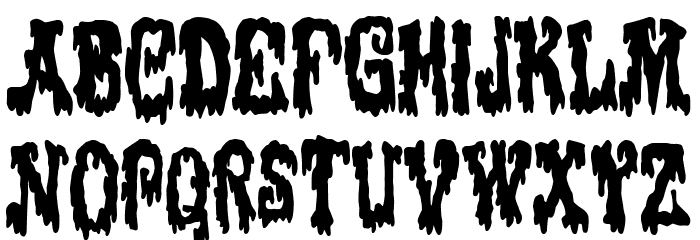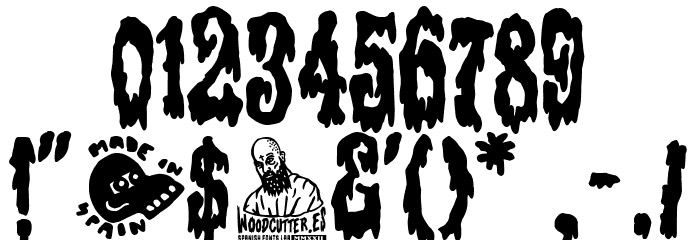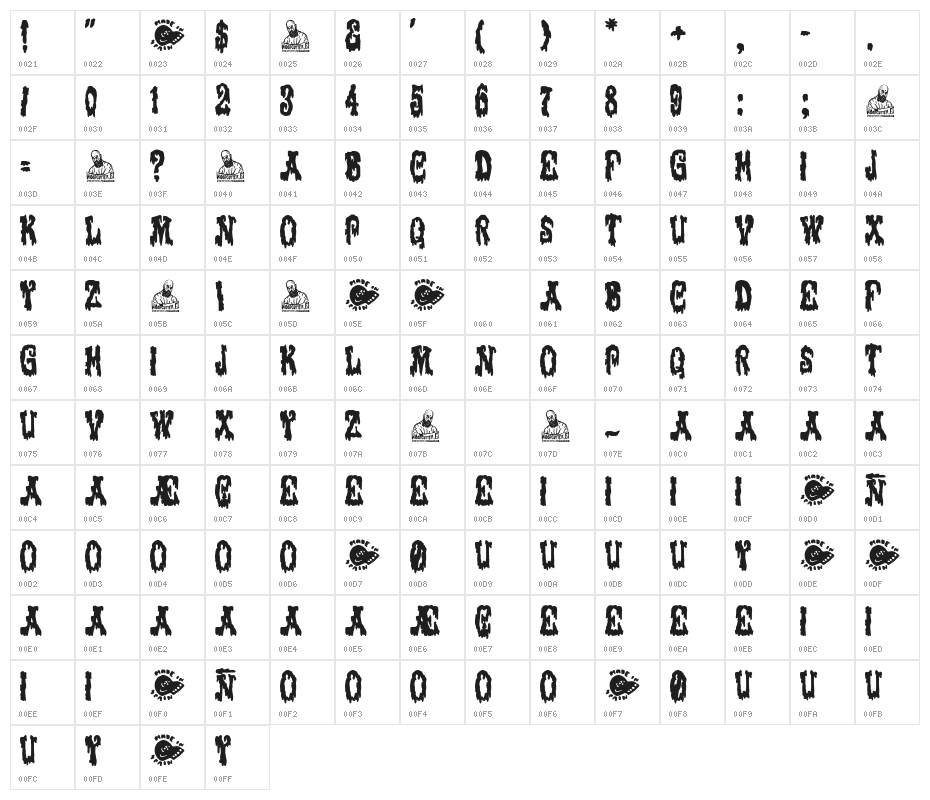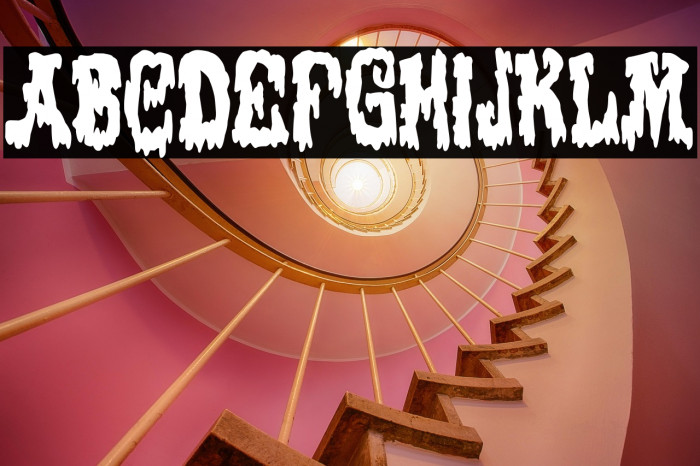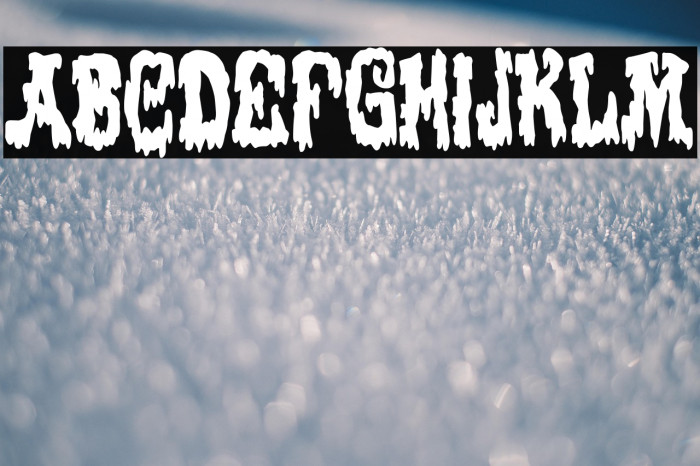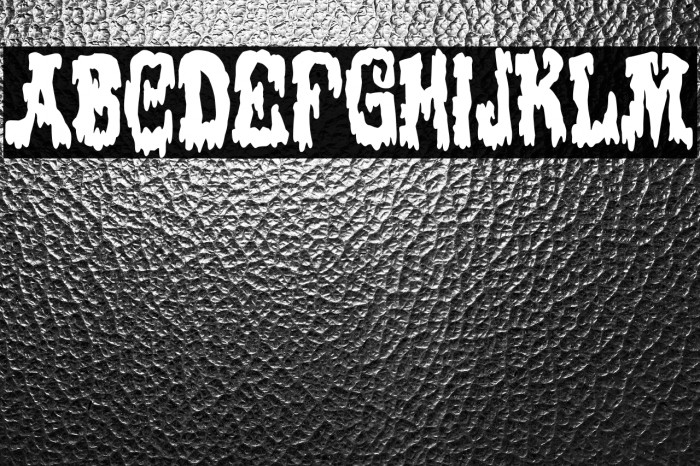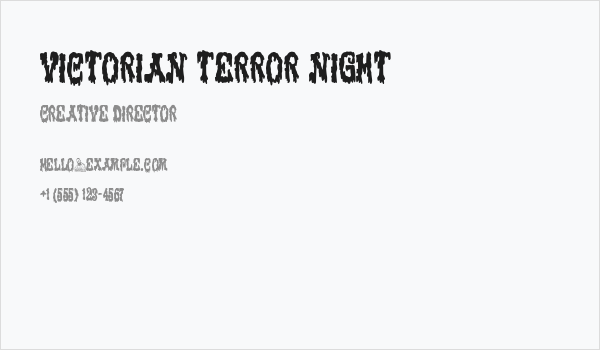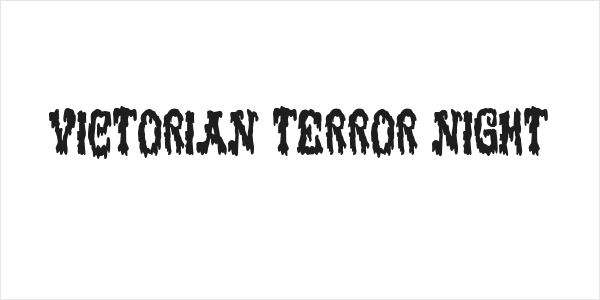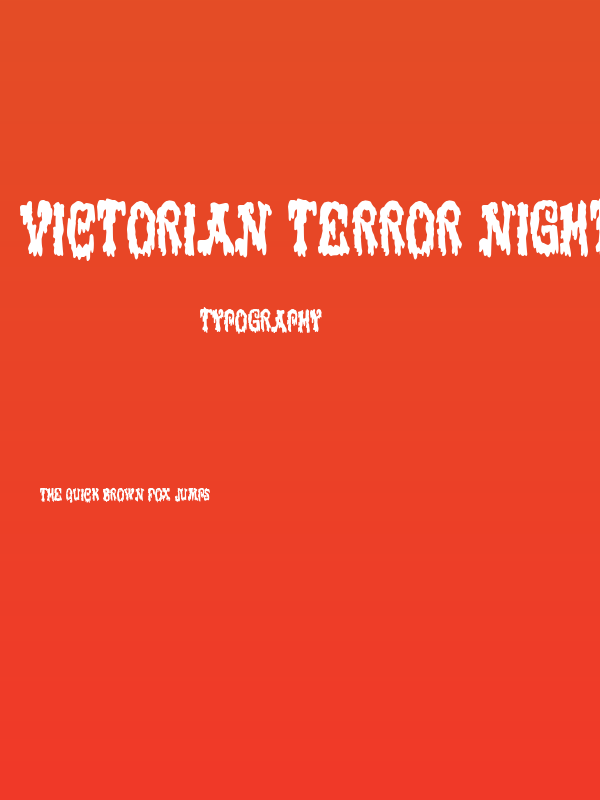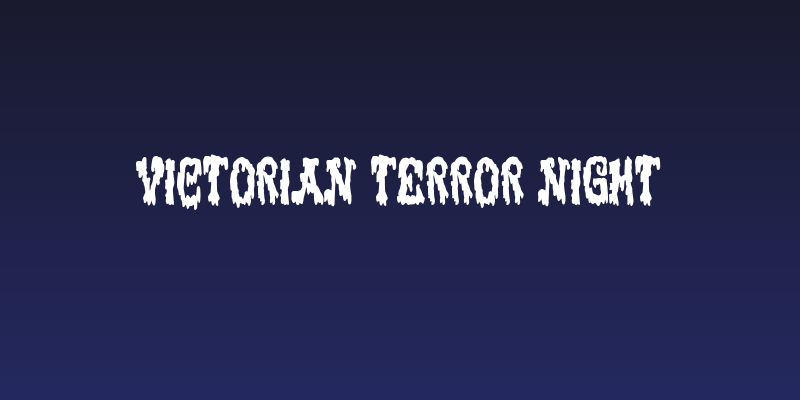
Victorian Terror Night Font
This font features a dramatic and eerie design, reminiscent of classic horror themes. The letters appear as if they are dripping or melting, creating a sense of movement and unease. The bold, irregular shapes give it a distinctive and eye-catching appearance, perfect for capturing attention. Each character is uniquely crafted, maintaining a consistent theme of horror and suspense. The numbers and special characters follow the same style, ensuring a cohesive look across all text. This font is ideal for projects that require a spooky or gothic aesthetic.
A bold, dripping font with a horror-inspired design.
- Font: Victorian Terror Night
- Proposed Projects: Ideal for Halloween-themed posters, horror movie titles, haunted house flyers, and spooky event invitations.